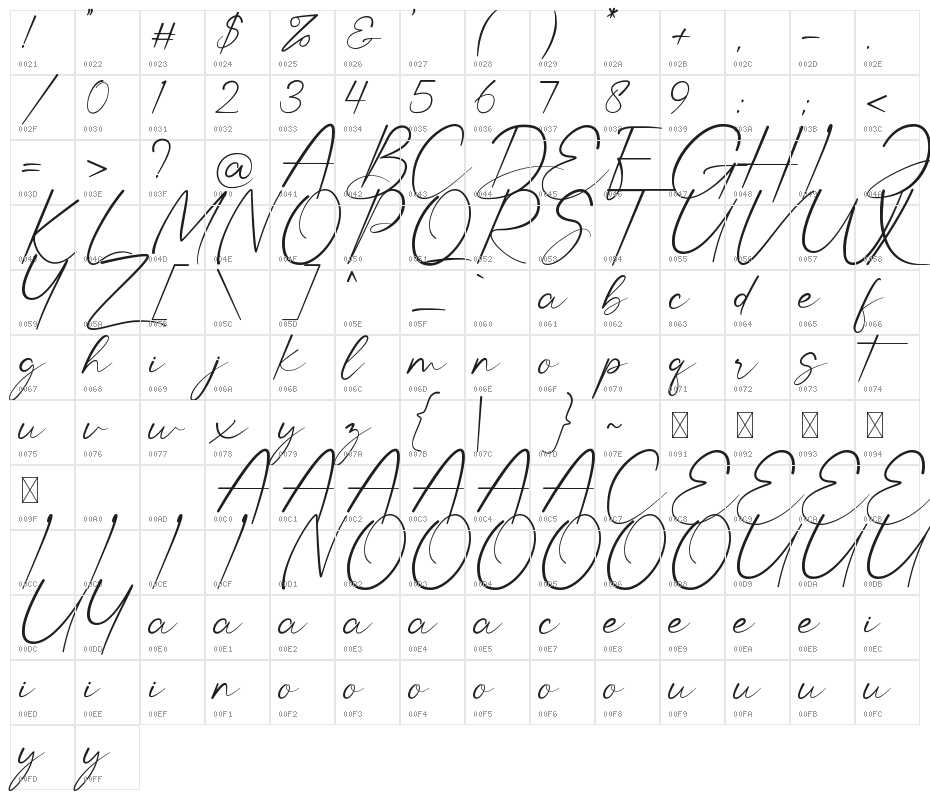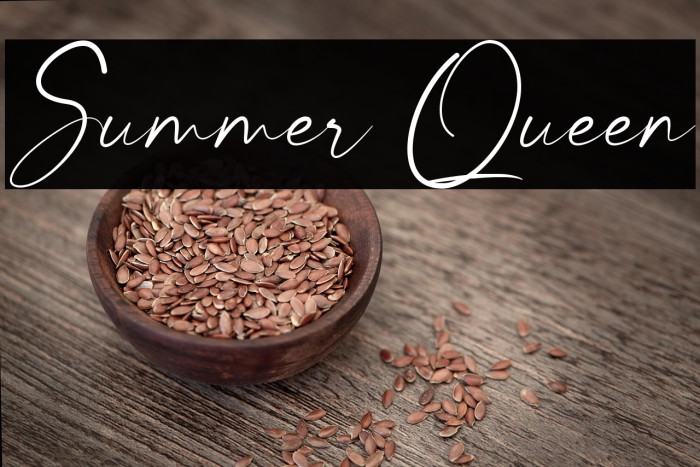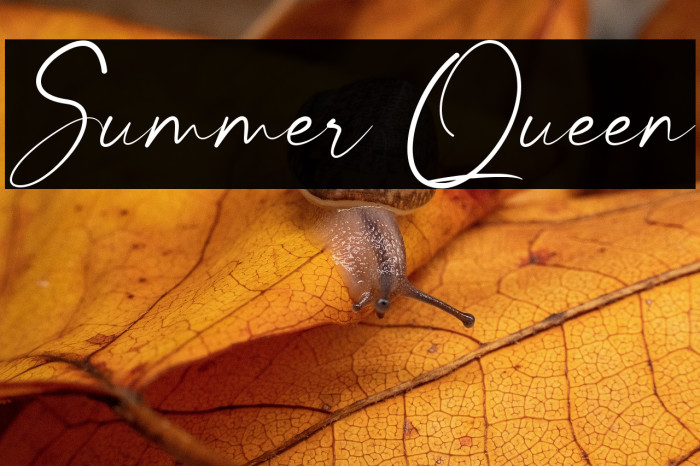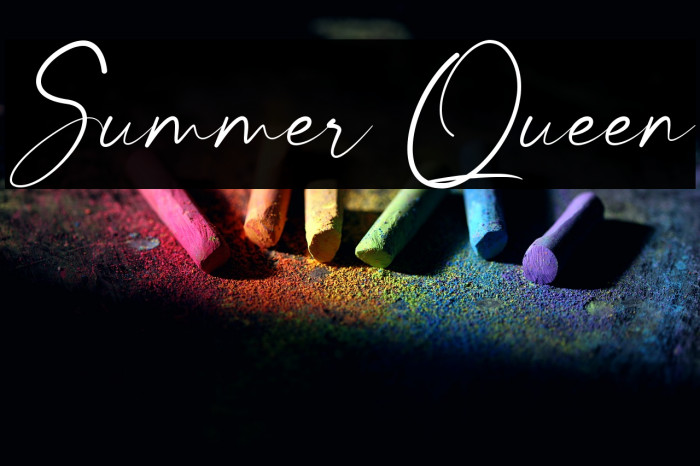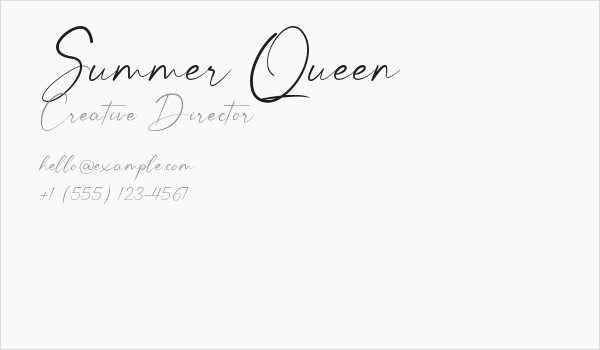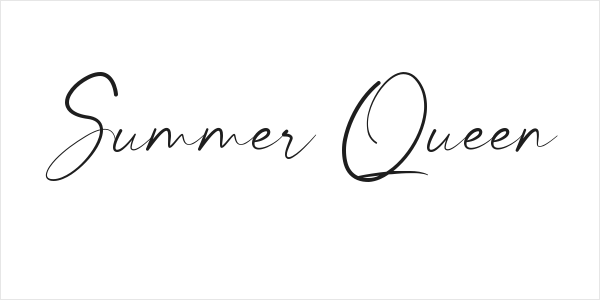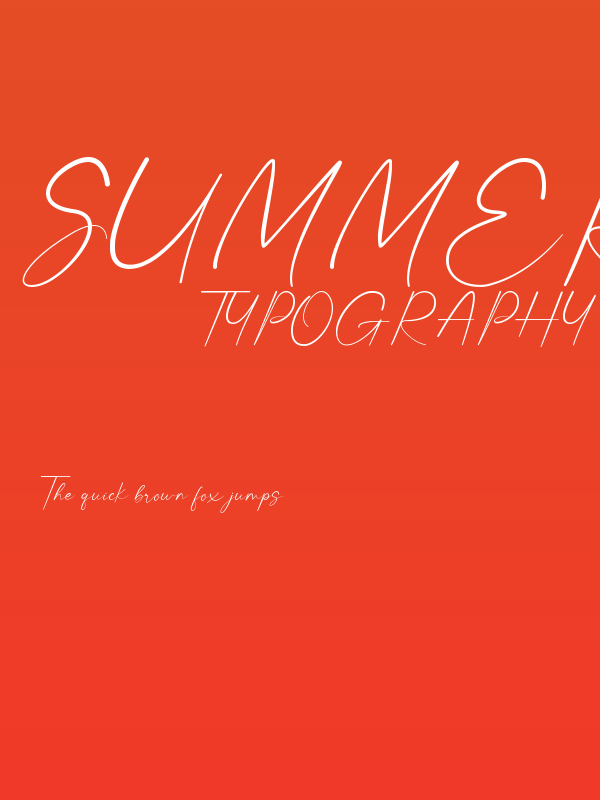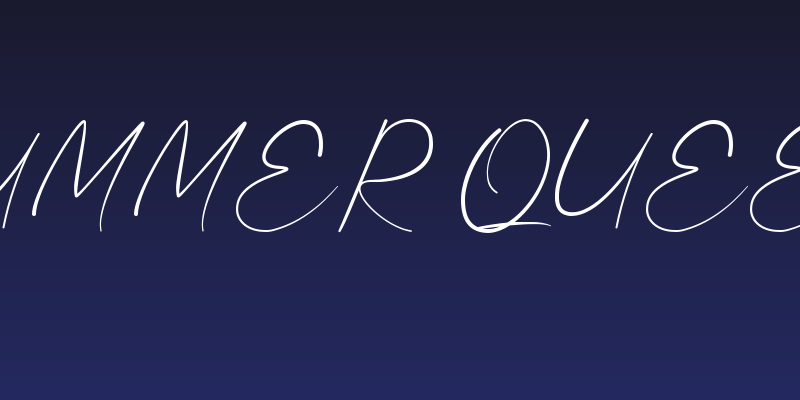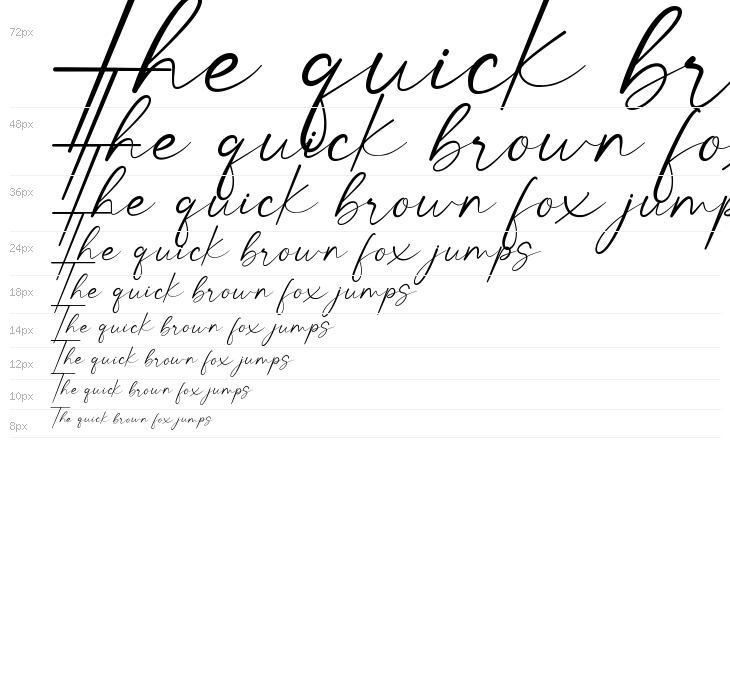
Summer Queen Font
Summer Queen Description
A flowing, elegant script font with a handwritten style, featuring smooth curves and a natural, cursive appearance.
| Overall Style | Elegant, Modern |
| Proposed Projects | Invitations, greeting cards, logos, branding. |